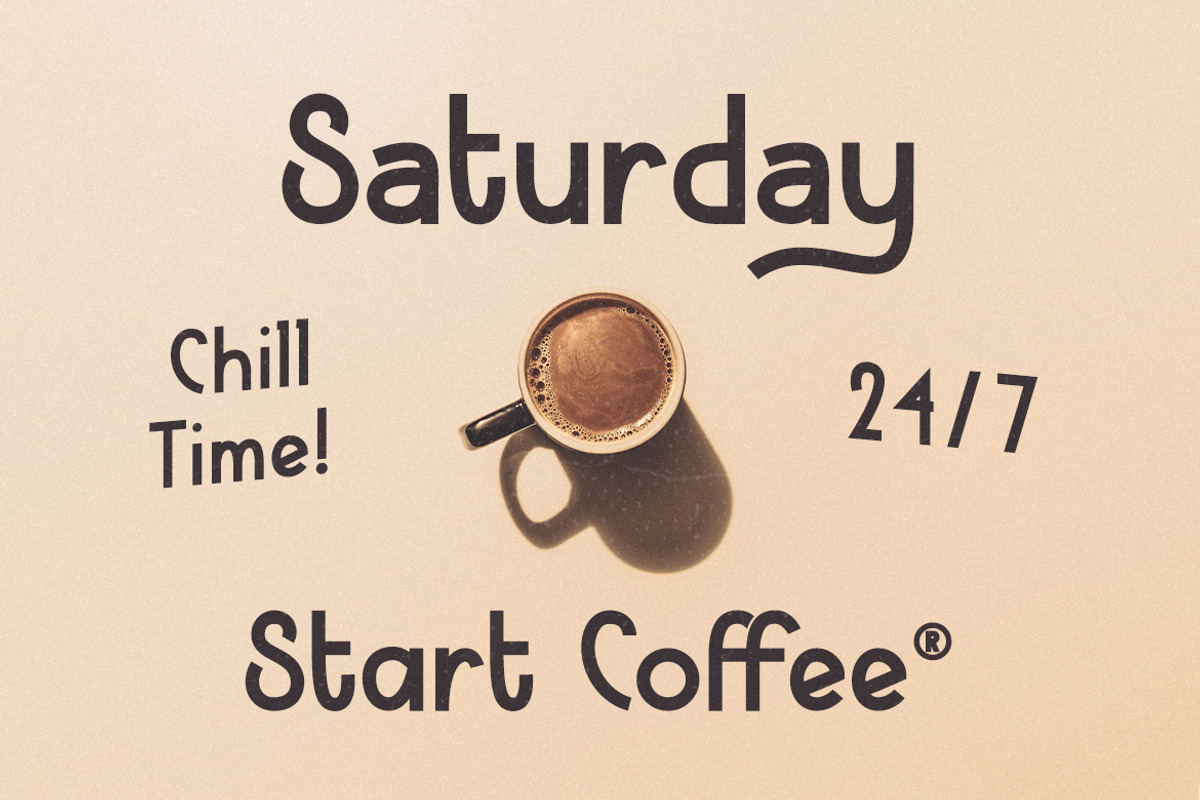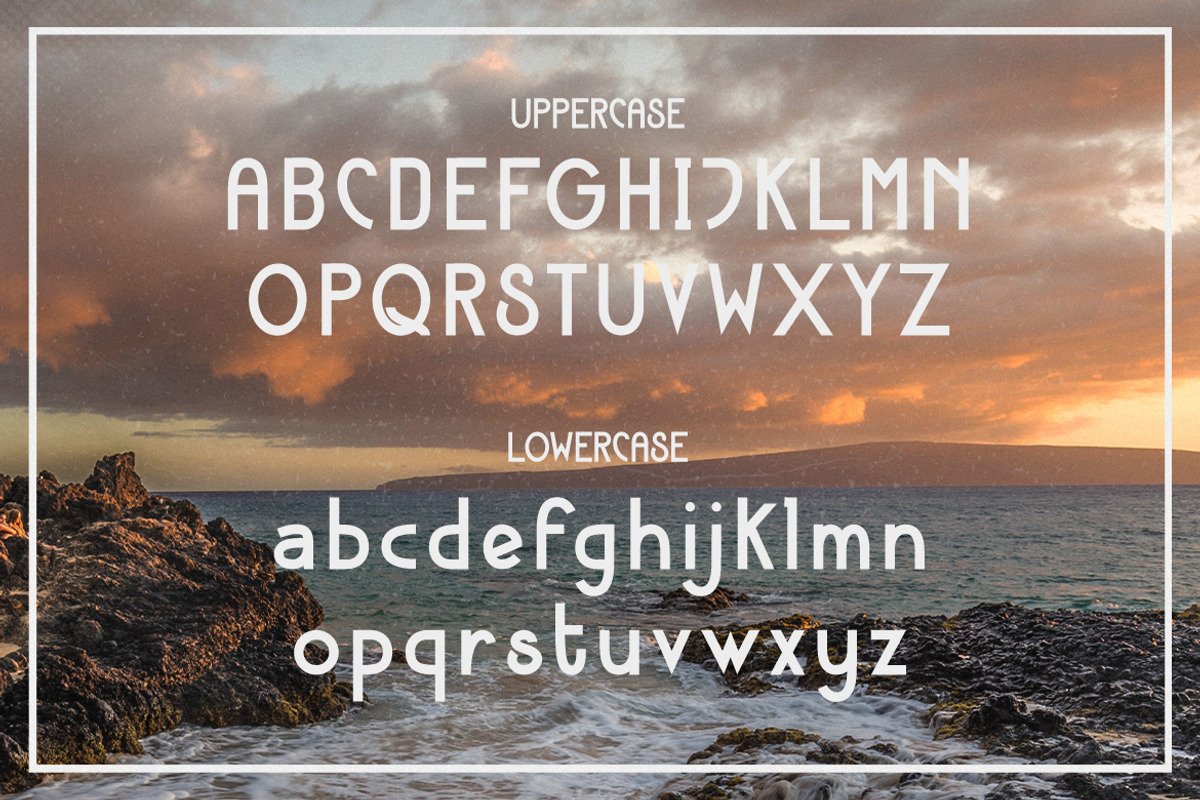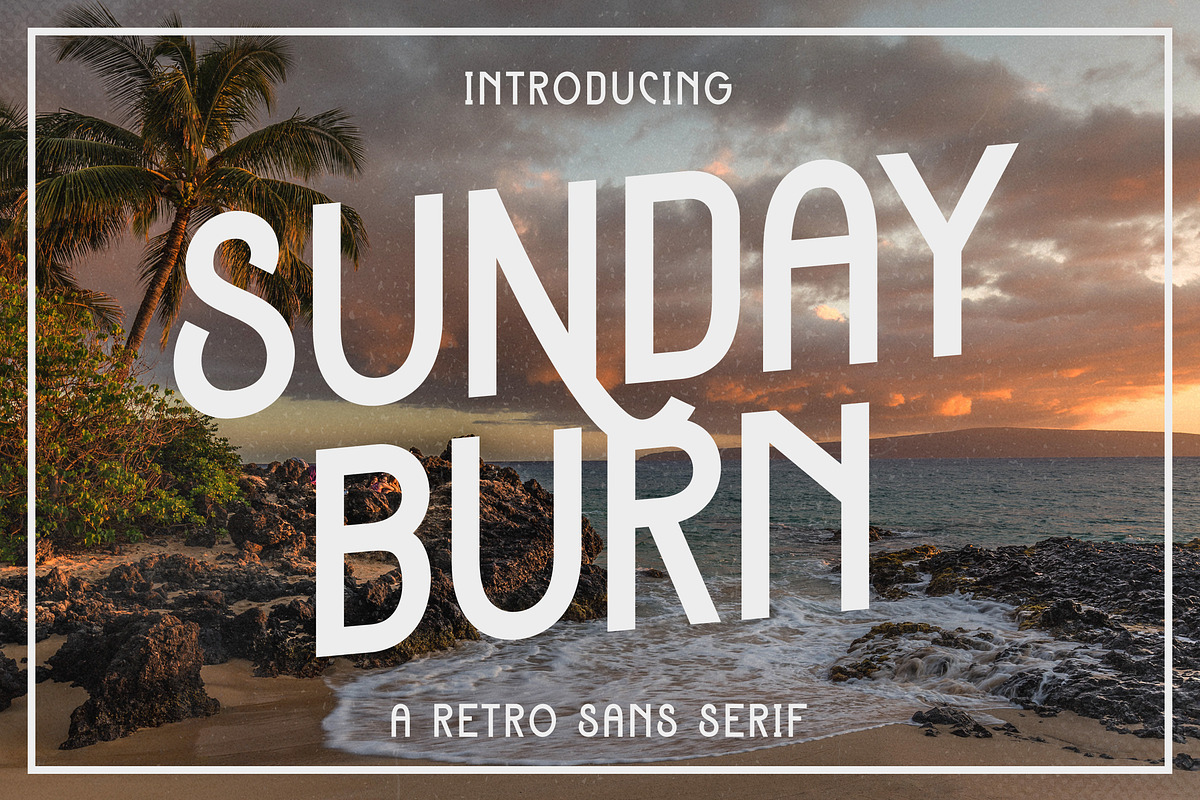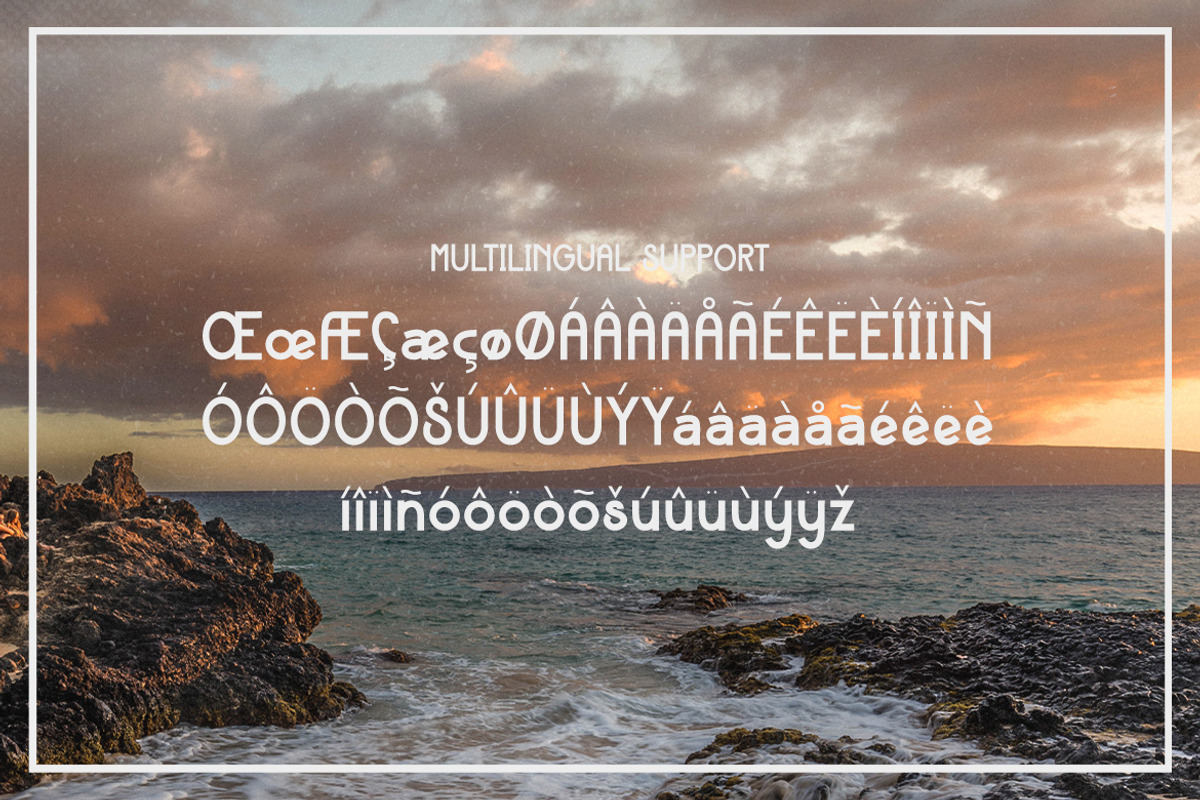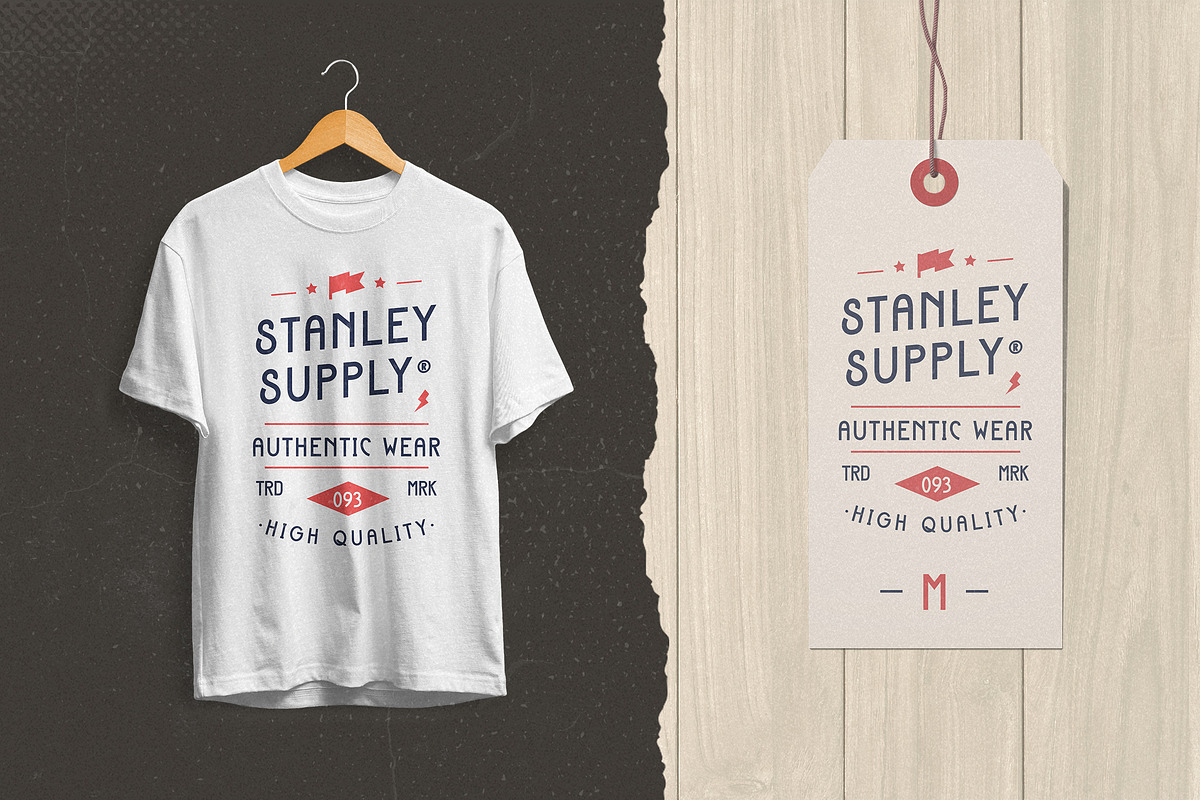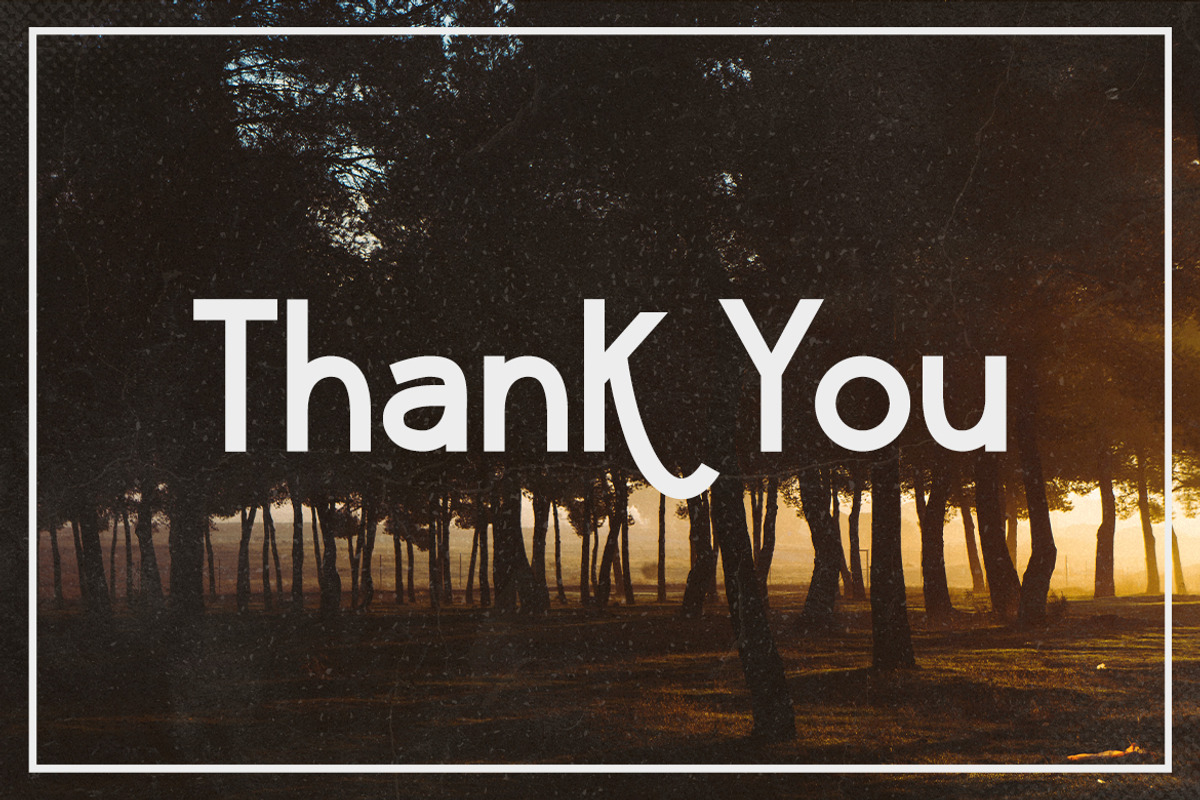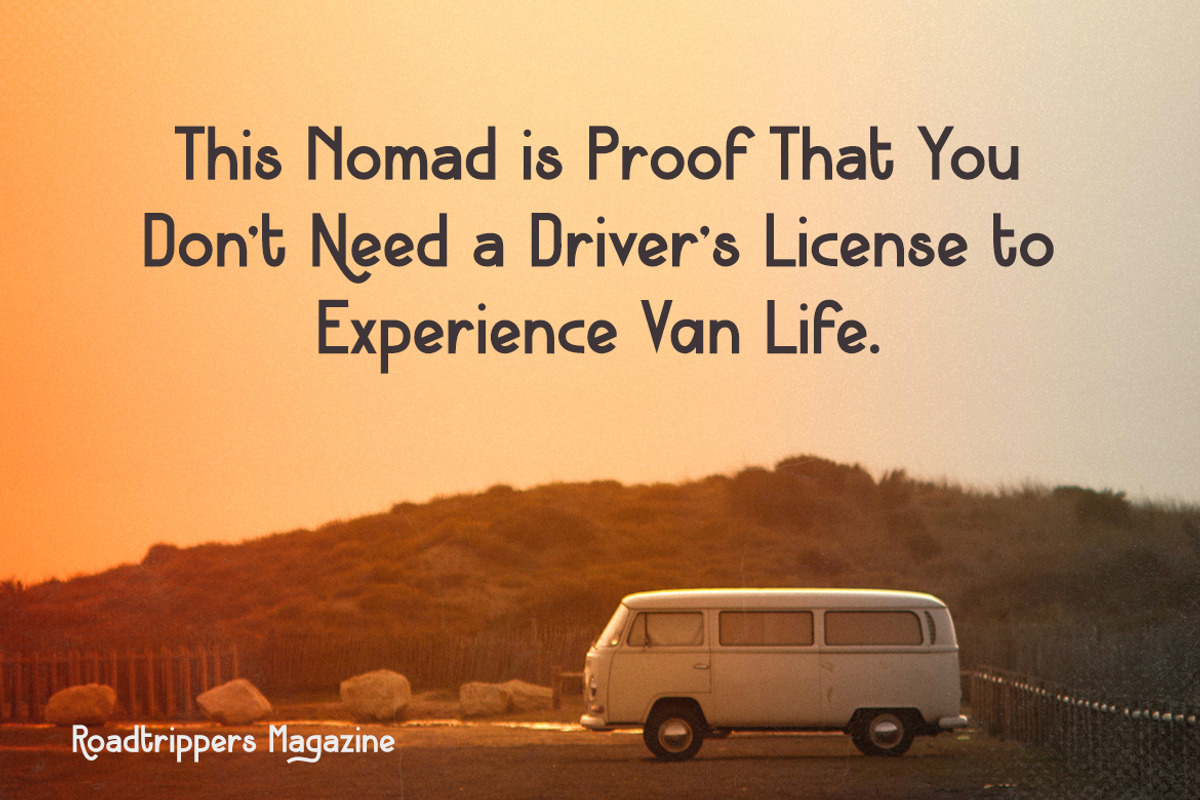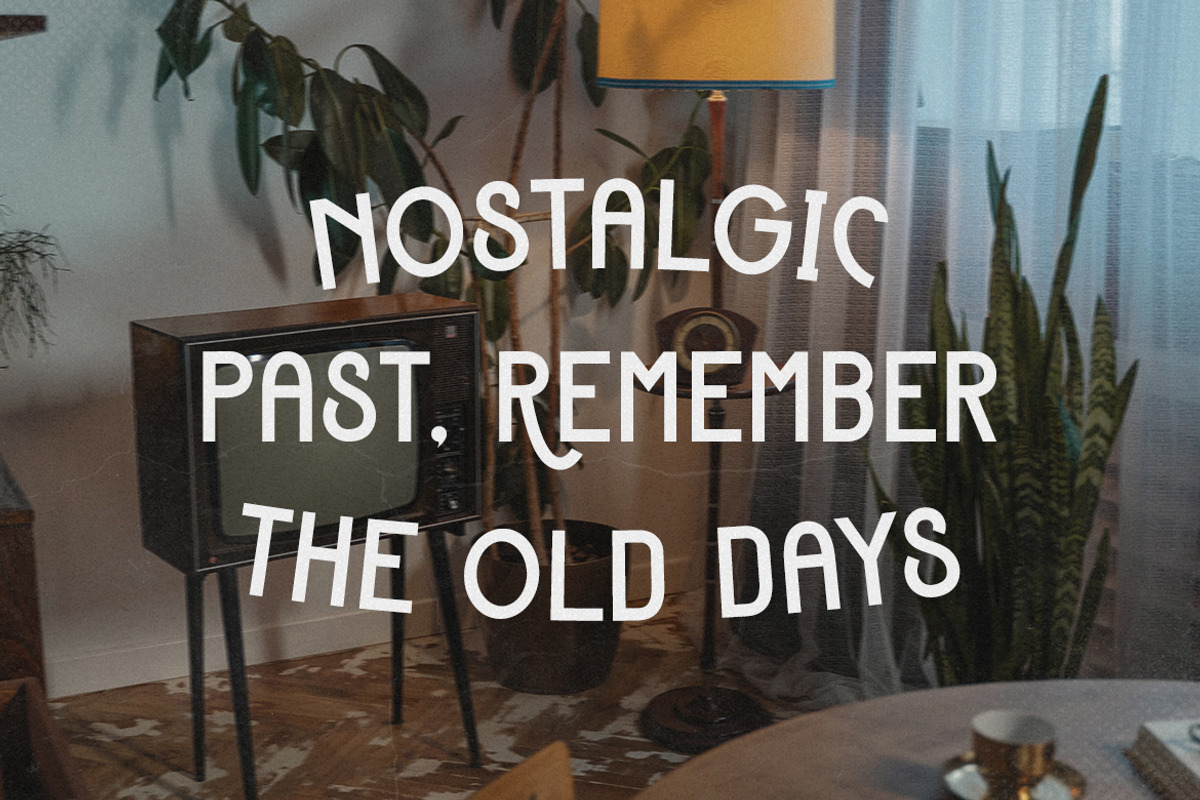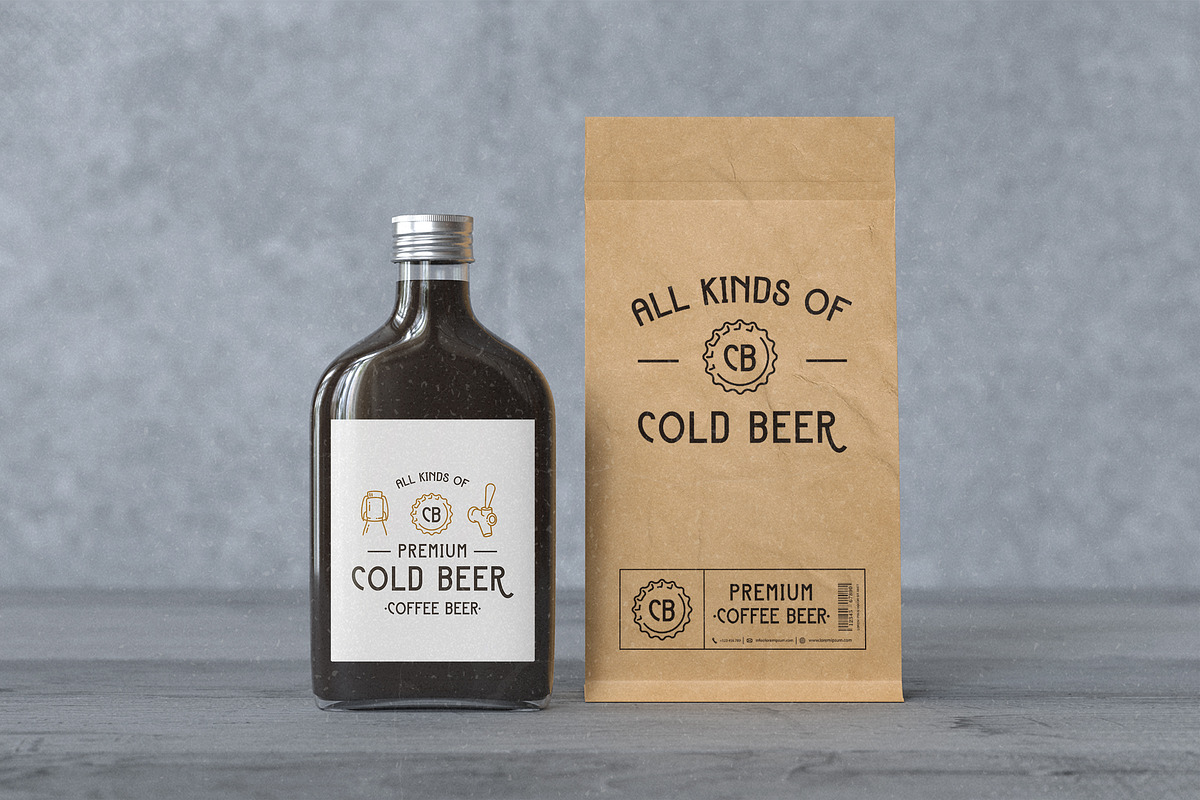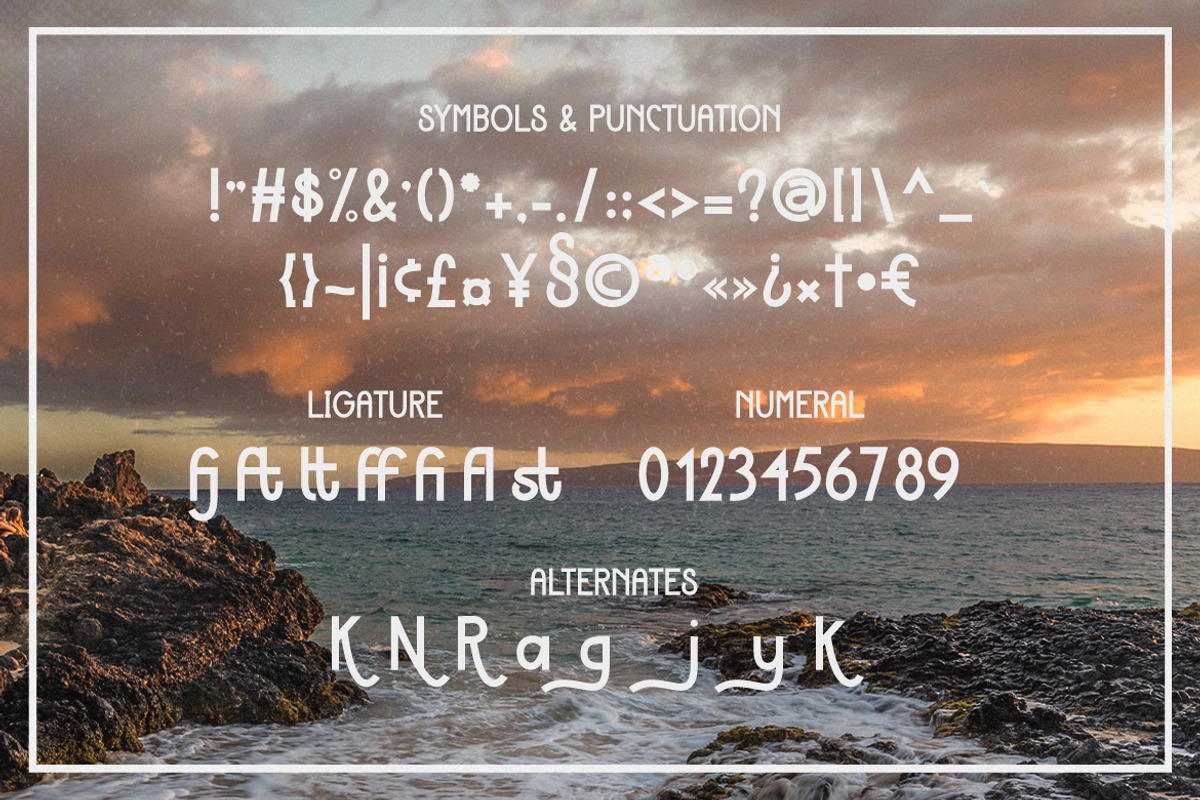
Sunday Burn - A Retro Sans Serif
Sunday Burn is a versatile sans serif typeface that gives a retro aesthetic. With it's unique & distinct characteristics it sets itself apart, while also maintaining a strong timeless appeal overall. The font will easily match a wide range of creations that require a distinct touch.
- Symbols & Punctuation
- Numeral